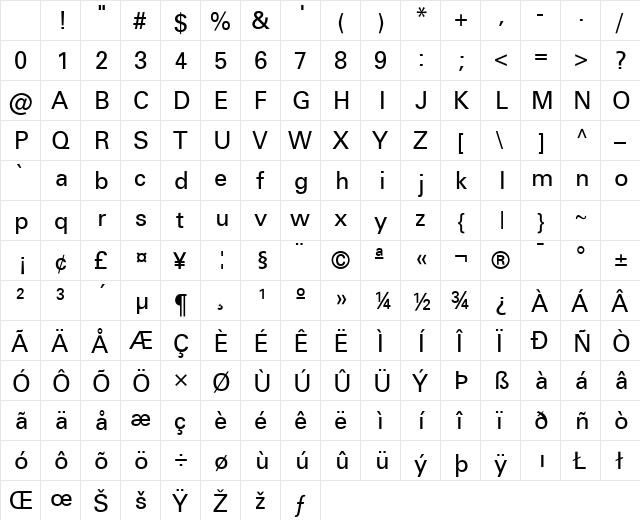
Complete Nova Medium SSi Medium glyph index. Displaying only characters natively supported by Nova Medium SSi Medium font.
Nova Medium SSi is a composed and adaptable typeface that performs quietly and consistently across a wide range of design contexts.